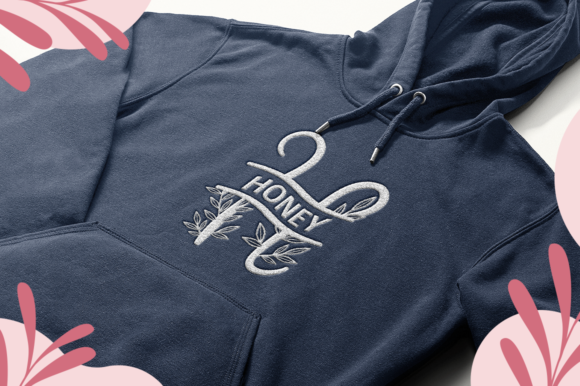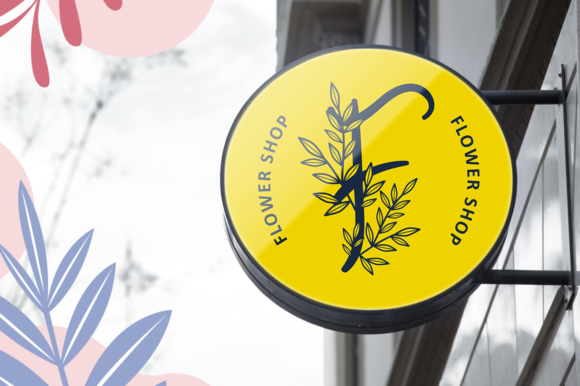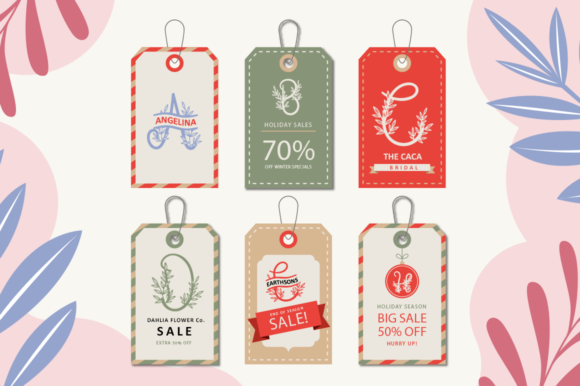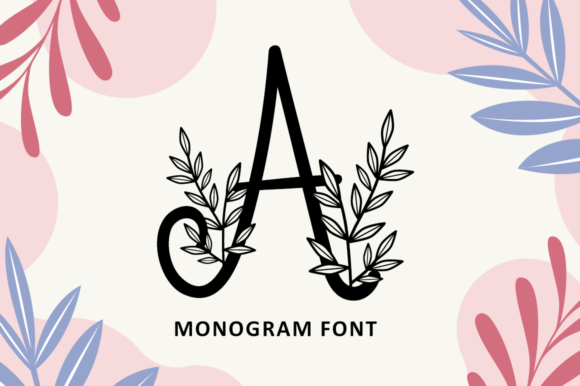
Introduction to Foliage Monogram Font
Foliage Monogram simplifies elegance into one truly outstanding display font.
It features original leaves-themed characters that will take your spring crafting projects to the next level .
Key Features of Foliage Monogram Font
Why Choose Foliage Monogram Font?